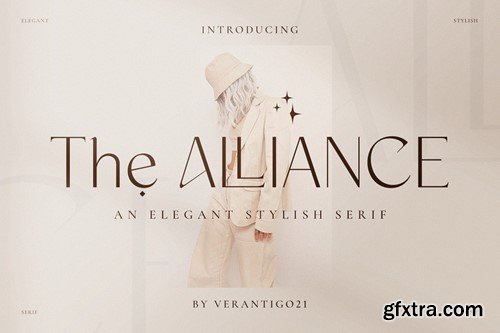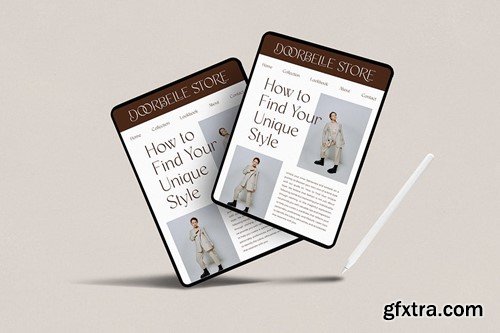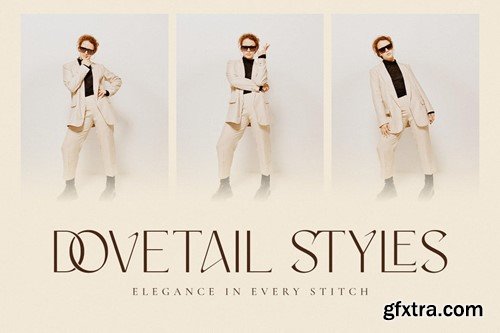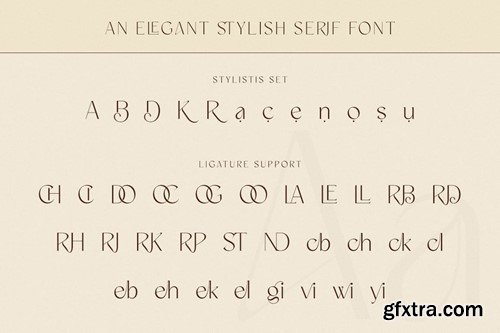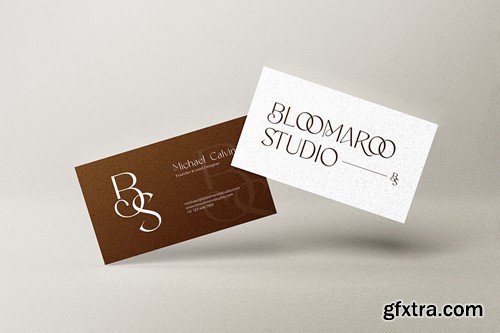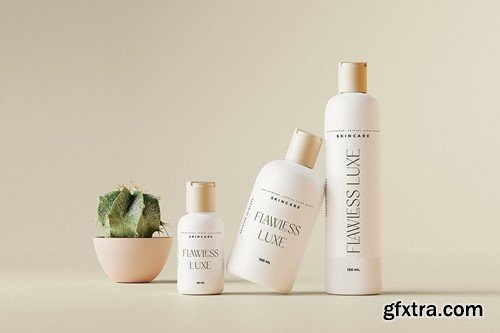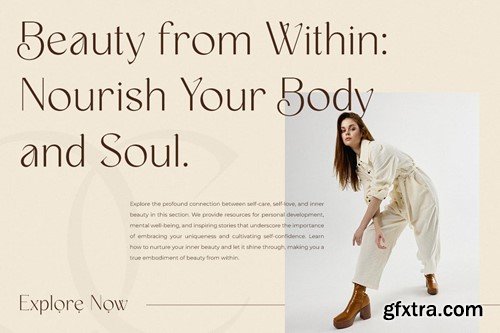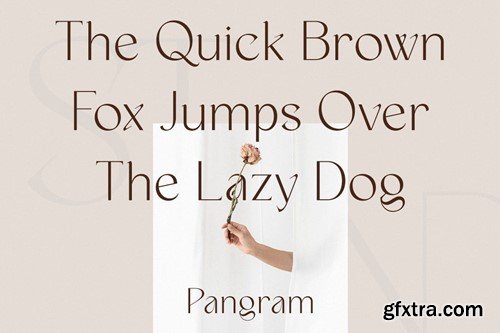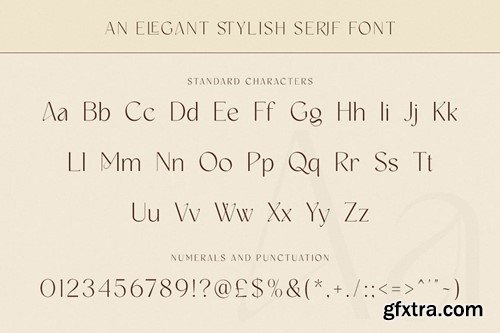
The Alliance - Elegant Serif Font
The Alliance is inspired by famous logos. It’s simple, yet classy, and was made with precision and measure. It’s perfect for logos & branding, photography, invitations, watermarks, advertisements, product designs, stationery, wedding designs, labels, product packaging, and much more! What included : The Alliance OTF The Alliance TTF The Alliance WOFF Numeral and Punctuation International Language Ligature Stylistic Set Works on PC & Mac Simple installations Accessible in Adobe Illustrator, Adobe Photoshop, Adobe InDesign, even works on Microsoft Word. Thank you for your purchase! Hope you enjoy with our font!